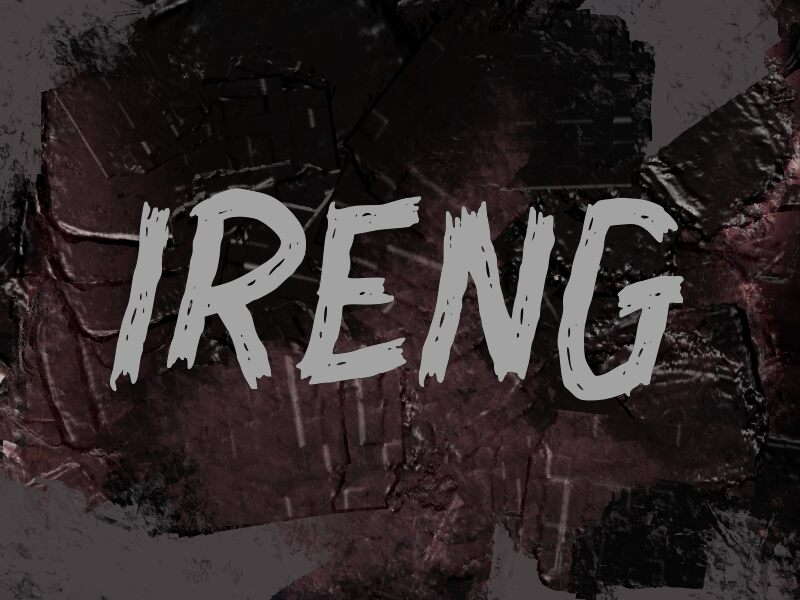
IRENG
Ireng font by wep is a free script font featuring an artistic flair for modern projects. Its textured finish mimics an expressive style that communicates the human hand-drawn appearance of genuine handwriting. Ireng is inspired by trash with spontaneous strokes for all your contemporary applications.
Ireng can get you creative posters, ads, packaging, and apps. It will look incredible in branding designs, social media posts, graffiti wall art murals, and tattoos. Other areas in which it can be used creatively include websites, invitations cards, worksheets covers, and decor items.